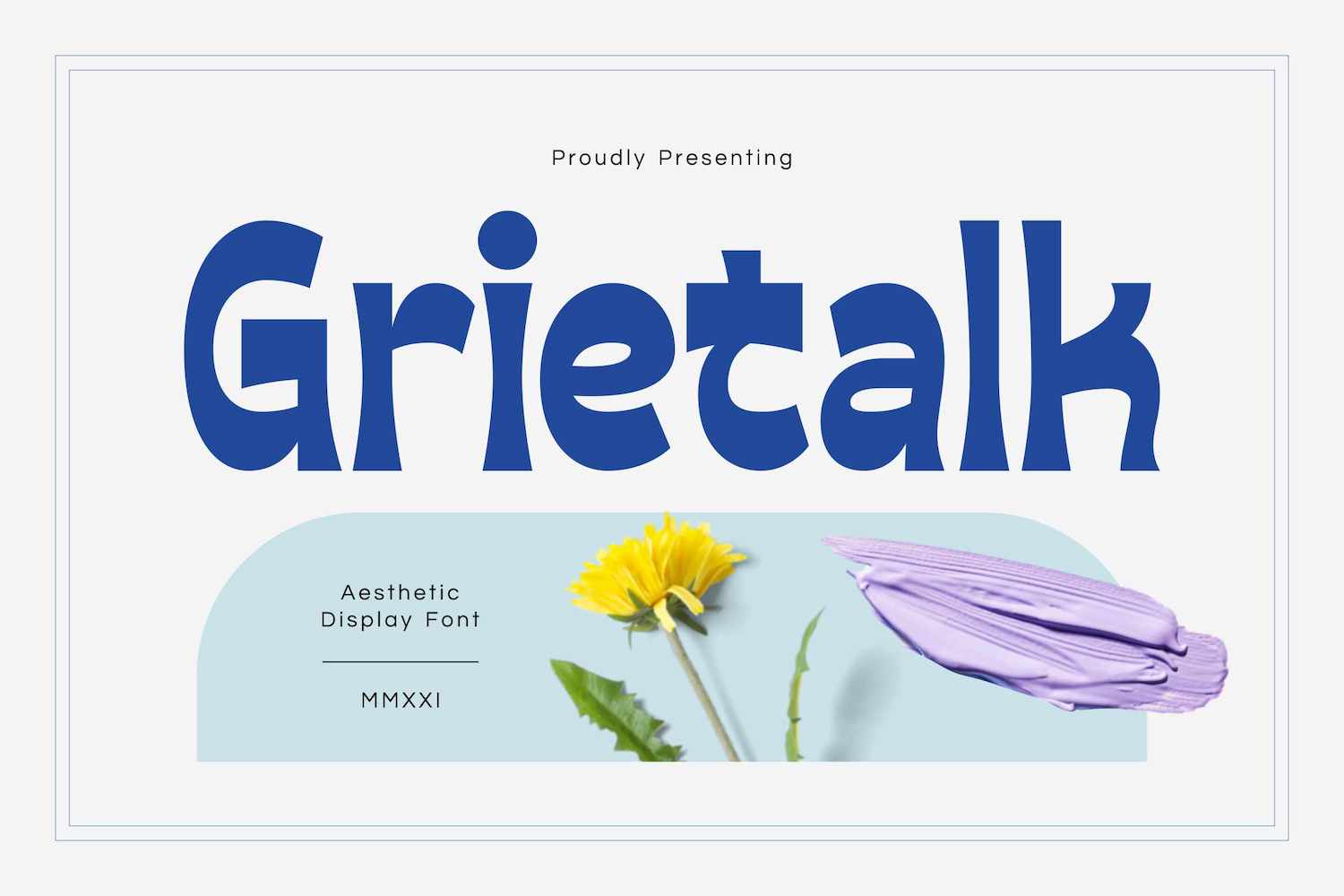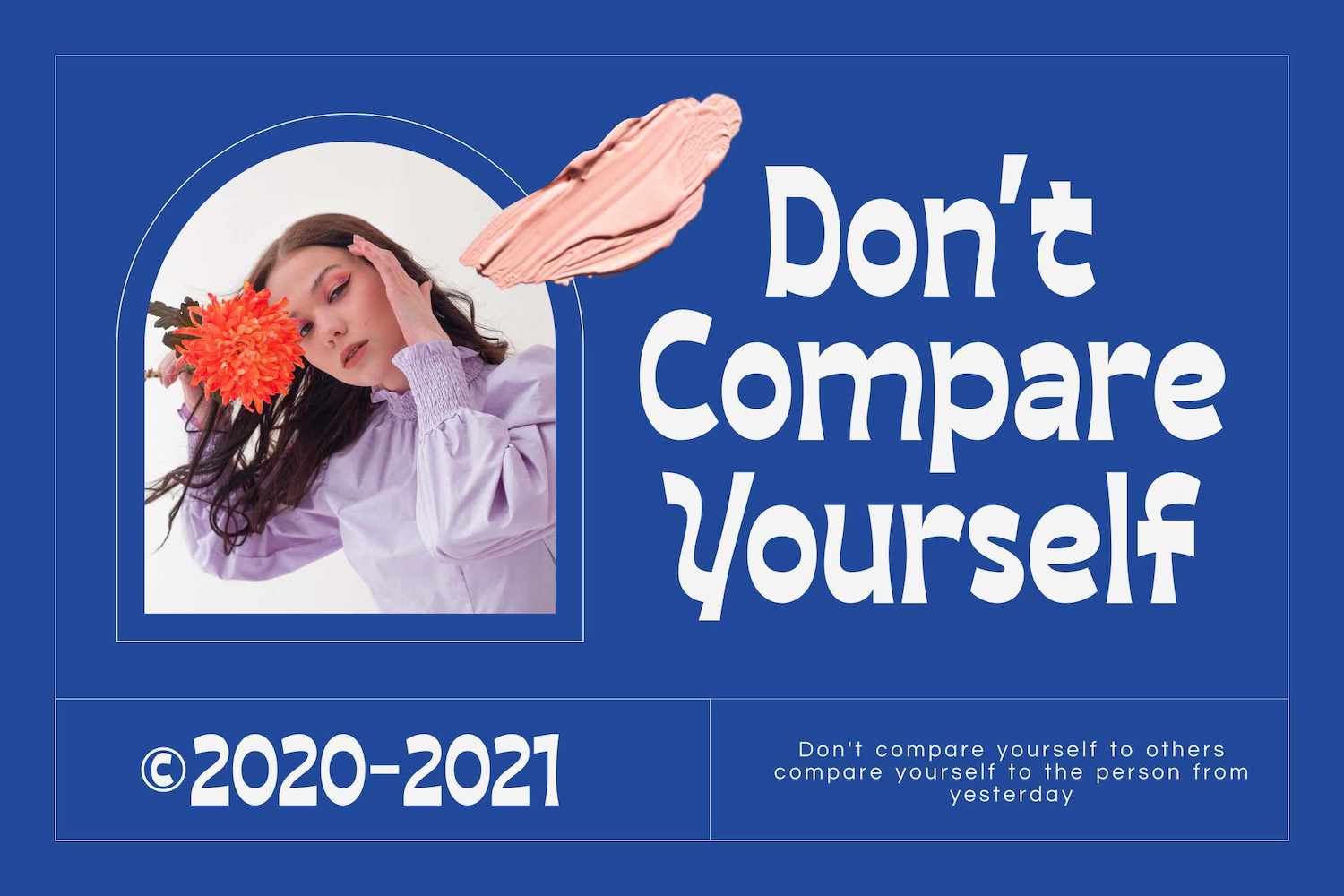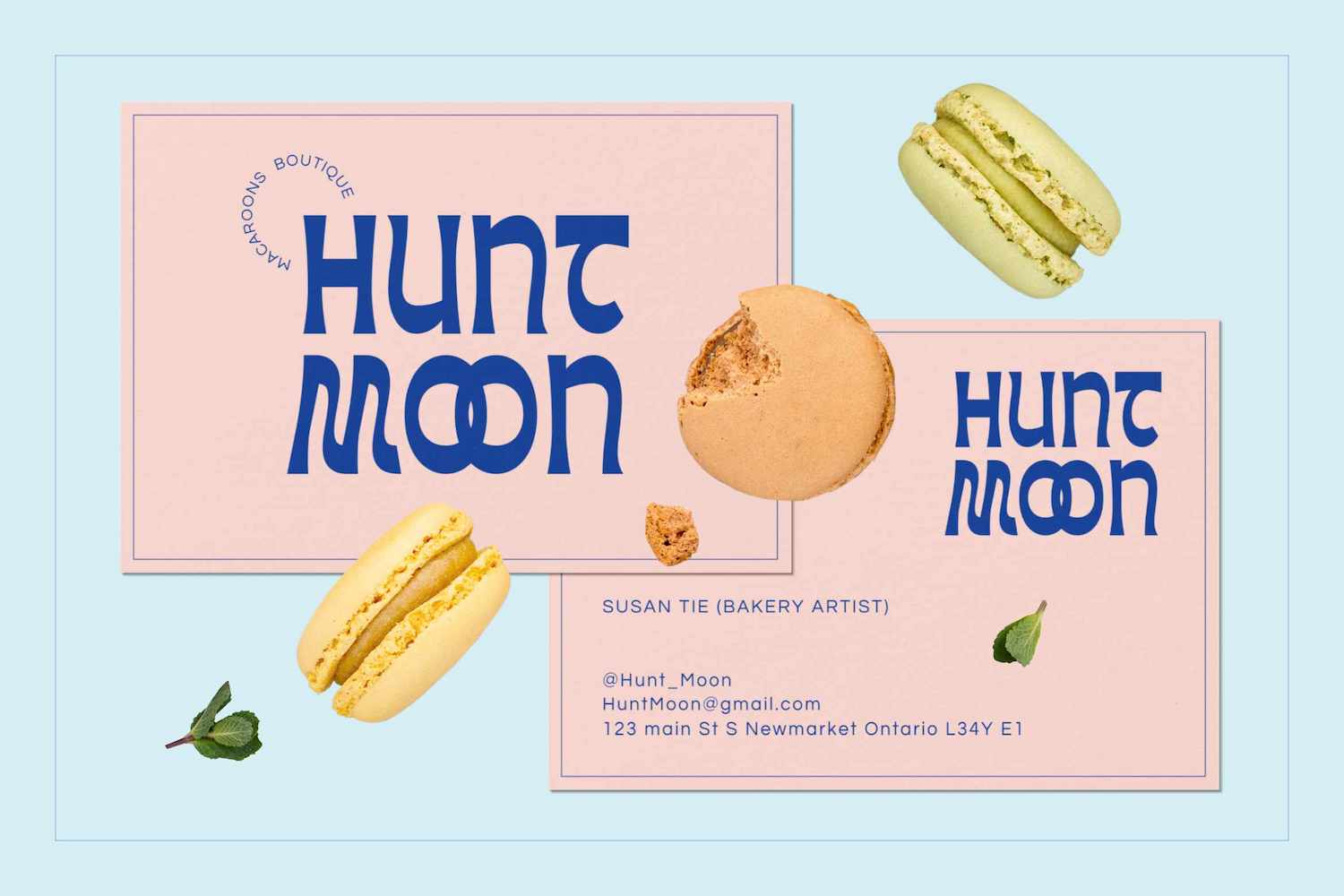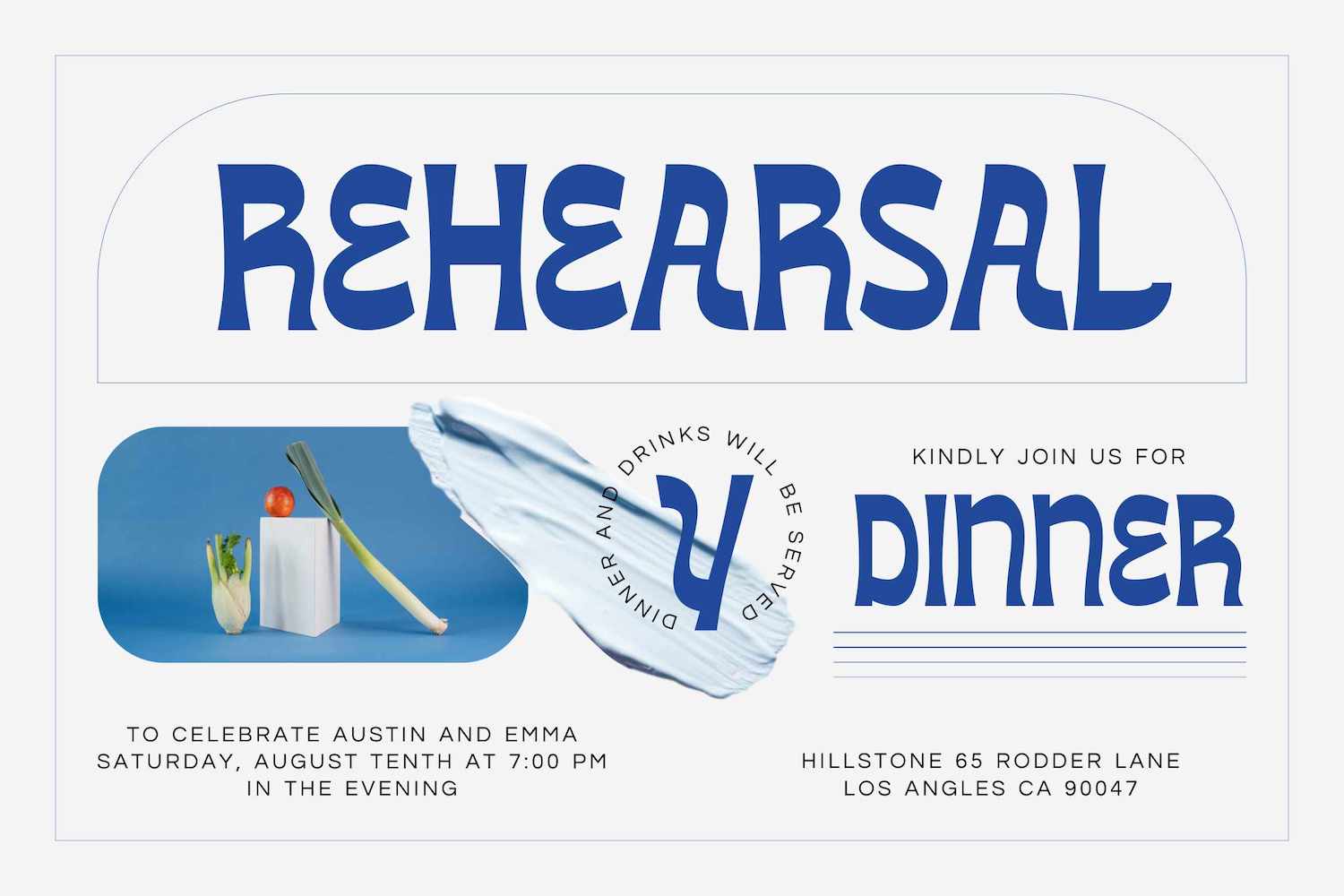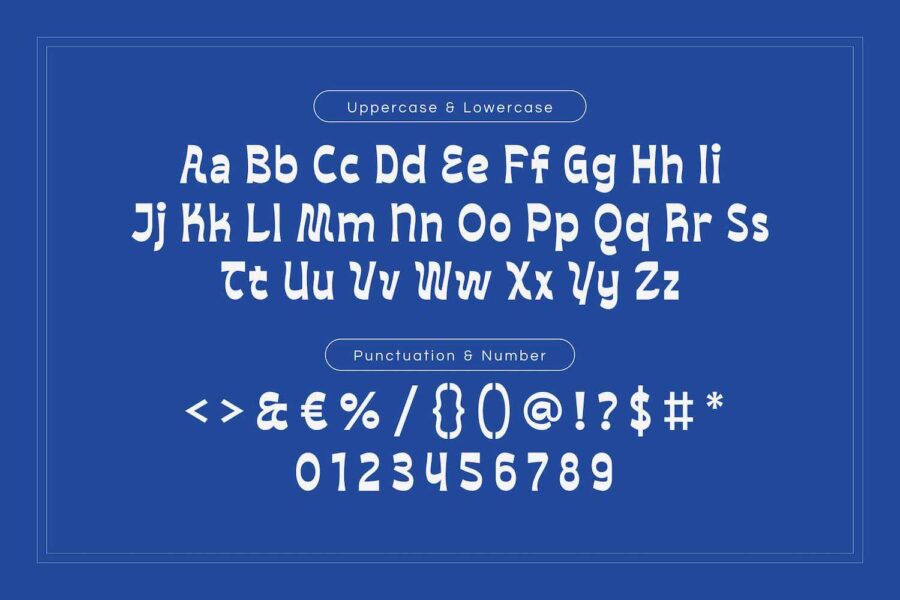
Grietalk
Glyphs for Grietalk
Grietalk is a playful and aesthetic display font designed to bring character and charm into modern creative projects. With its bold strokes, quirky letterforms, and slightly asymmetrical design, Grietalk exudes a handmade, spontaneous feel that adds personality to branding, packaging, or social media visuals. Its curved details and confident stance make it a fun choice for designers looking to break away from overly polished type.
Perfectly suited for aesthetic themes, editorial spreads, or product labels, Grietalk balances whimsy and clarity, making text both readable and expressive. The unique alternates and punctuation add a distinct rhythm to each line, inviting experimentation across print and digital platforms. Whether you’re designing invitations or launching a boutique brand, Grietalk makes every word feel custom-crafted.